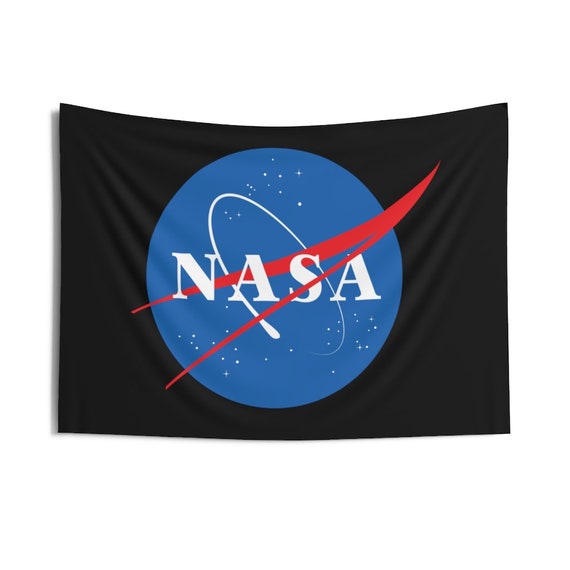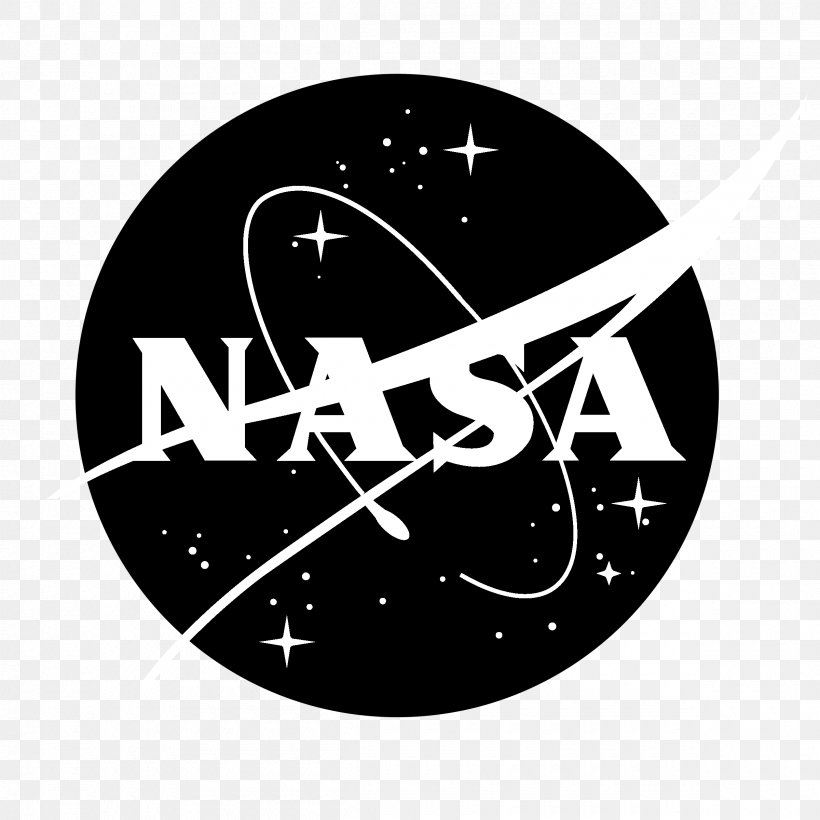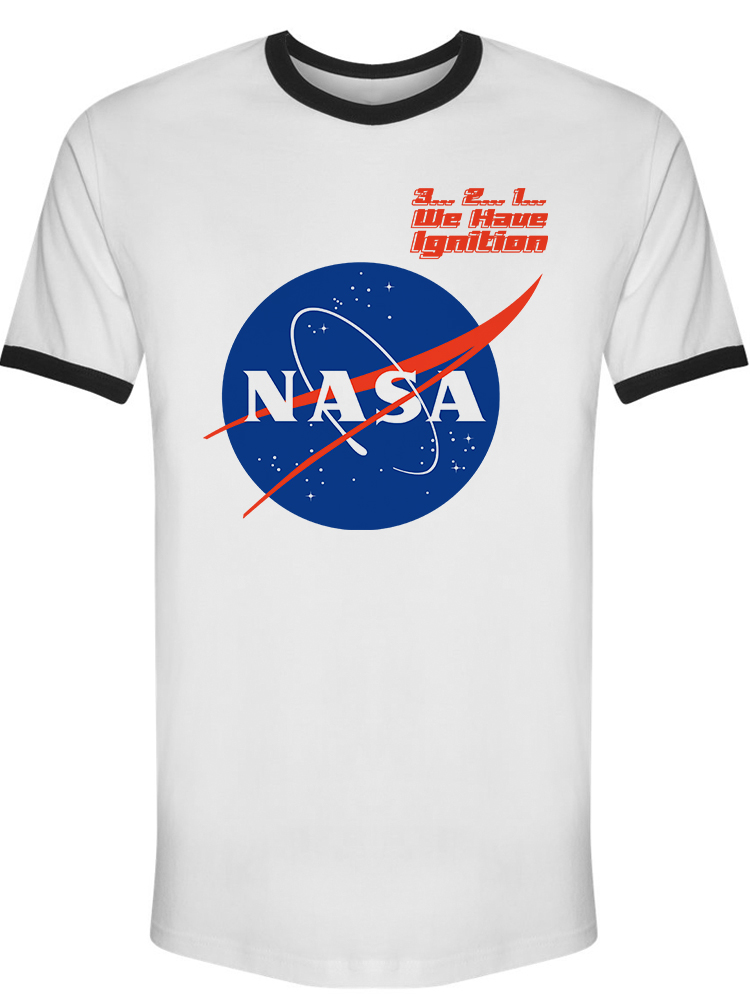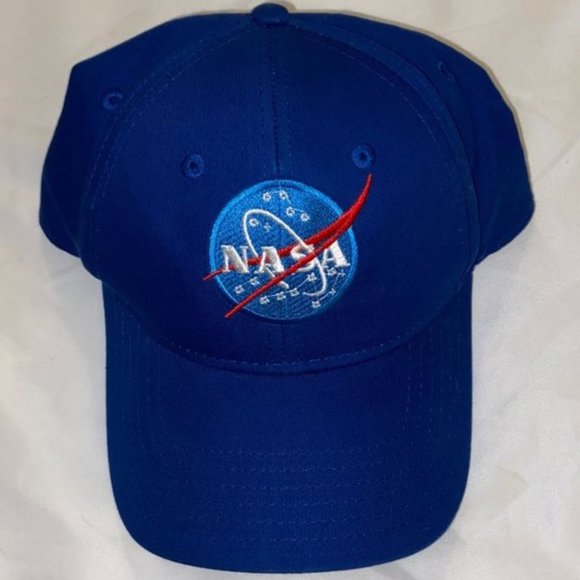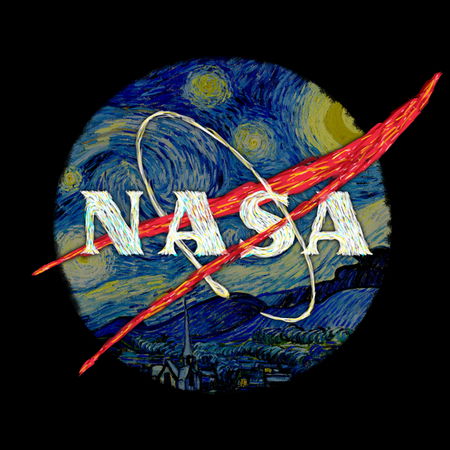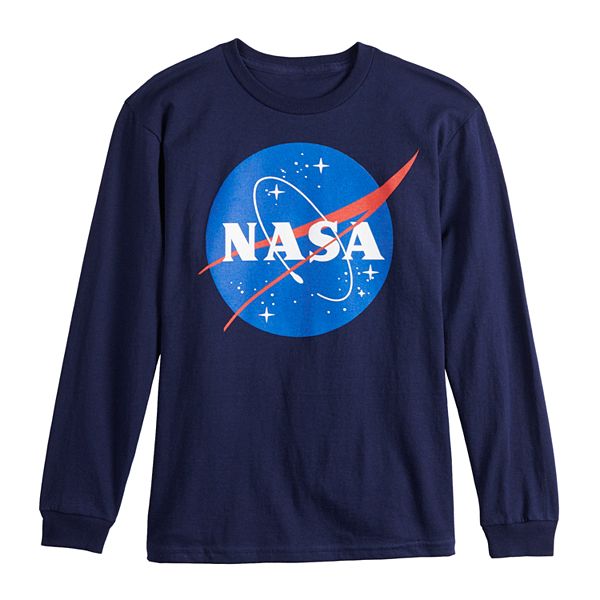
Click to find the best 13 free fonts in the Nasa style. A font called Space Meatball is based on James Modarellis NASA logo design.
Novarese is a well-balanced and relatively wide text font with classic forms.
Nasa logo font style. Space Meatball All times are CEST. Nasa worm a futuristic techno sans-serif retro magazine logo geometric decorative art deco transport science fiction rounded news monoline minimal fast cosmetics cool computer clean 1970s wii wide video. Did you scroll all this way to get facts about nasa font.
Both of the typefaces include their own unique appearance and keen features. The logo has different elements. 2021 - Best Free Fonts - Best Fonts.
Nasa font download Nasa font. Trajan Pro contains 2. But the actual lettering is very similar to the Bambi font designed by Gerard E.
First is featuring the highly legible serif look typeface while other comprises a worm symbol lettering. What Font Was Used in Nasa Logo. He divided his fonts into 4 categories and in the designing of Novarese took the best characteristics of each group and combined them into this font.
The Helvetica typeface has been used by NASA extensively for decades from the space shuttle to signage and printouts. The most common nasa font material is ceramic. You can use the OpenType stylistic alternates feature to add a crossbar to the A.
Well youre in luck because here they come. In the style of Latin stone scripts of the second century BC. The white font becomes a blurry white rectangle but its obvious what it must say based on the color.
NASA Font NASA Logo Font. Trajan Pro was designed by Carol Twombly and published by Adobe. What is logo Nasa font.
Many earth-orbiting satellites that perform functions ranging from weather forecasting to navigation and even global communications were launched by this agency. Meatball and Bambi are these two fonts respectively. In OpenType-savvy applications a slanted M and W will automatically flip or straighten out depending on neighboring characters.
Officially there are two main fonts texture we can see in the logo for the NASA. It is one of the most ubiquitous typefaces in the world used commonly at large sizes for signs titles and logos. Nasalization is available in 6 weights and italics.
Nasalization is an ultramodern sans serif typeface with a nod to the 1975 NASA logo. Even though the wording is illegible when scaled down you can still make out that it is the NASA meatball based on the blue circle with white font in the middle. Its the closet match Ive found.